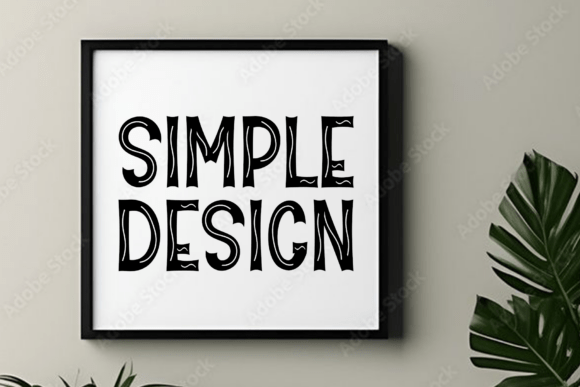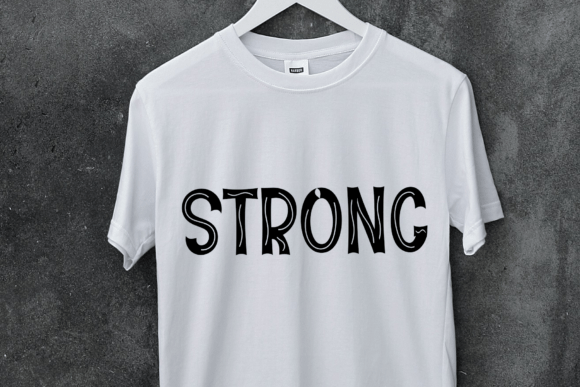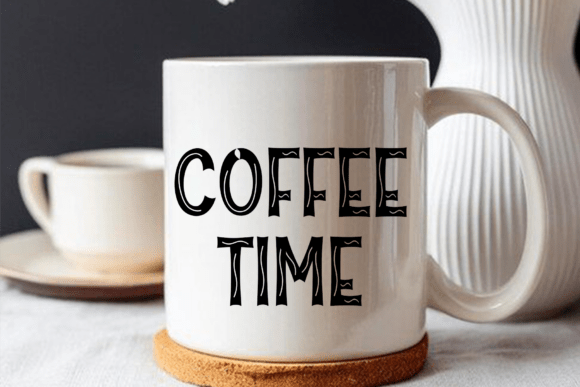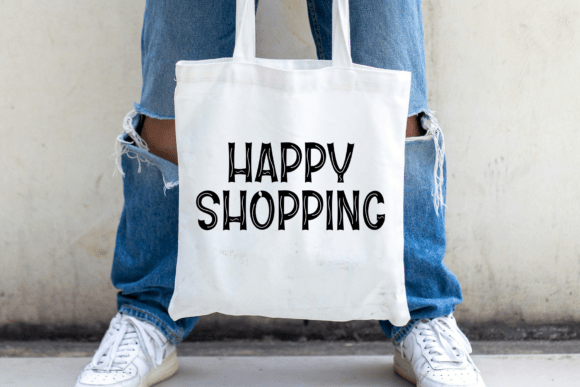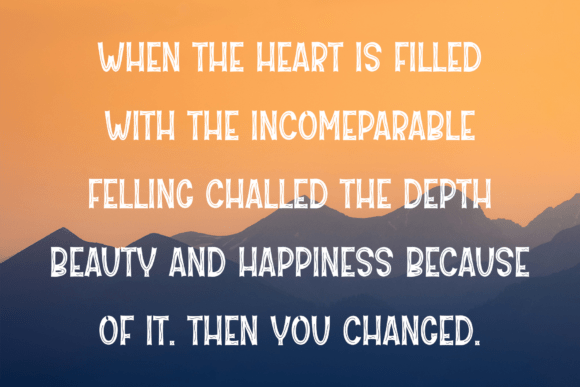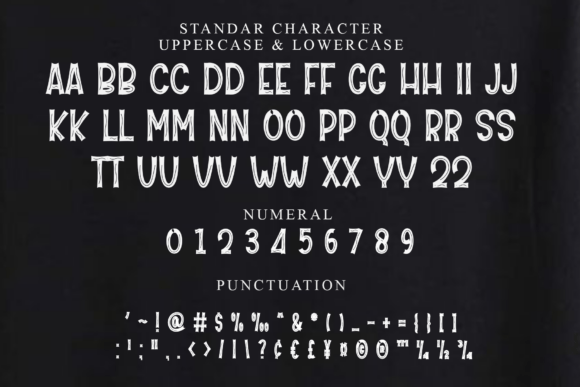
Cookies Christmas Font: The Perfect Addition to Your Holiday Designs
Are you looking for a font that captures the warmth and magic of the holiday season? Look no further than the Cookies Christmas font! This casual and creative font is perfect for designers and crafters who want to add a touch of personality to their holiday projects. In this article, we’ll take a closer look at the Cookies Christmas font, its features, and how you can use it to create stunning holiday designs.
What is Cookies Christmas Font?
Cookies Christmas font is a hand-drawn, casual font that exudes warmth and friendliness. Its round, playful strokes create a relaxed and approachable feel, making it perfect for personal projects, invitations, and social media graphics. The font’s charming, hand-drawn aesthetic adds a fun and unique touch to any design, making it ideal for holiday-themed projects.
Key Features of Cookies Christmas Font
- Hand-Drawn Aesthetic: The font’s hand-drawn design gives it a unique and charming feel that’s perfect for holiday-themed projects.
- Playful Strokes: The font’s round, playful strokes create a relaxed and approachable feel that’s ideal for personal projects and social media graphics.
How to Use Cookies Christmas Font in Your Designs
The Cookies Christmas font is versatile and can be used in a variety of design projects, including:
- Holiday Invitations: Add a personal touch to your holiday invitations with the Cookies Christmas font.
- Social Media Graphics: Create stunning social media graphics with the Cookies Christmas font that’s sure to grab attention.
- Personal Projects: Use the Cookies Christmas font in your personal projects, such as holiday cards, gift tags, and more.
- Crafting Projects: The Cookies Christmas font is perfect for crafters who want to add a personal touch to their holiday crafting projects.
Tips for Using Cookies Christmas Font
- Pair with Other Fonts: Pair the Cookies Christmas font with other fonts to create a unique and visually appealing design.
- Experiment with Colors: Experiment with different colors to find the perfect combination that matches your holiday theme.
- Use in Combination with Graphics: Use the Cookies Christmas font in combination with holiday-themed graphics to create a stunning design.
Why Choose Cookies Christmas Font?
The Cookies Christmas font is a great choice for designers and crafters who want to add a personal touch to their holiday designs. Here are a few reasons why:
- Unique Aesthetic: The Cookies Christmas font has a unique and charming aesthetic that’s perfect for holiday-themed projects.
- Versatile: The Cookies Christmas font is versatile and can be used in a variety of design projects.
The Cookies Christmas font is a great addition to any designer’s or crafter’s font collection. Its charming, hand-drawn aesthetic and playful strokes make it perfect for holiday-themed projects. With its standard PUA Encoded glyphs and ease of use, the Cookies Christmas font is a great choice for anyone looking to add a personal touch to their holiday designs.